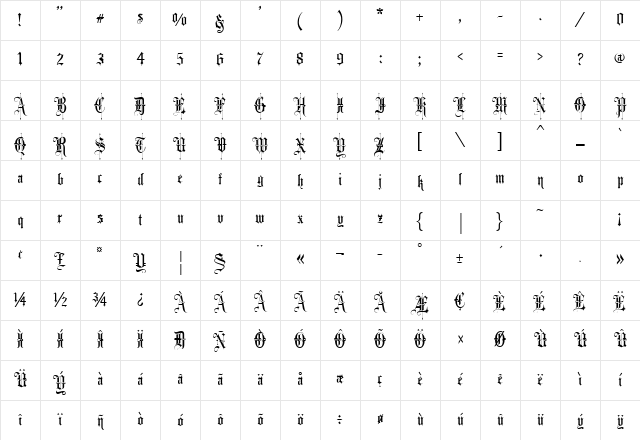
FancyCardText Embellished Regular Free Font
FancyCardText Embellished Regular
Design Context for FancyCardText Embellished
FancyCardText Embellished is a composed and adaptable typeface that performs quietly and consistently across a wide range of design contexts.